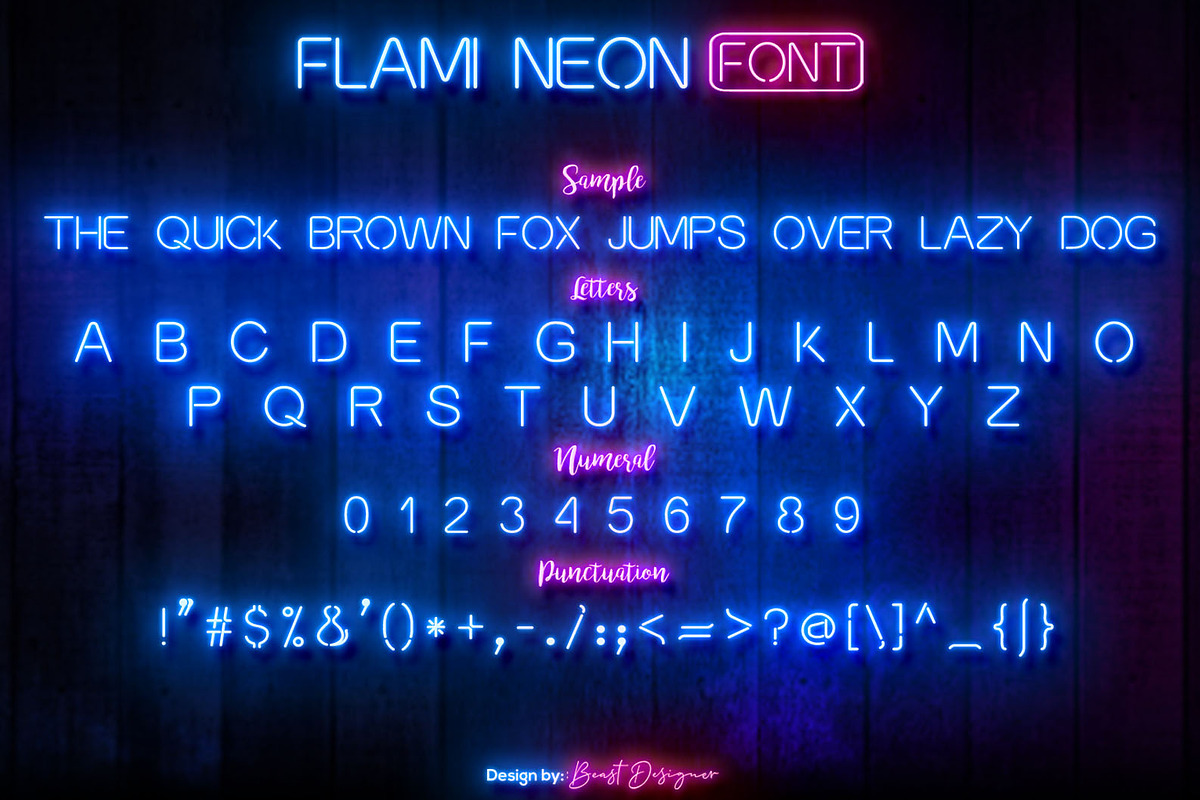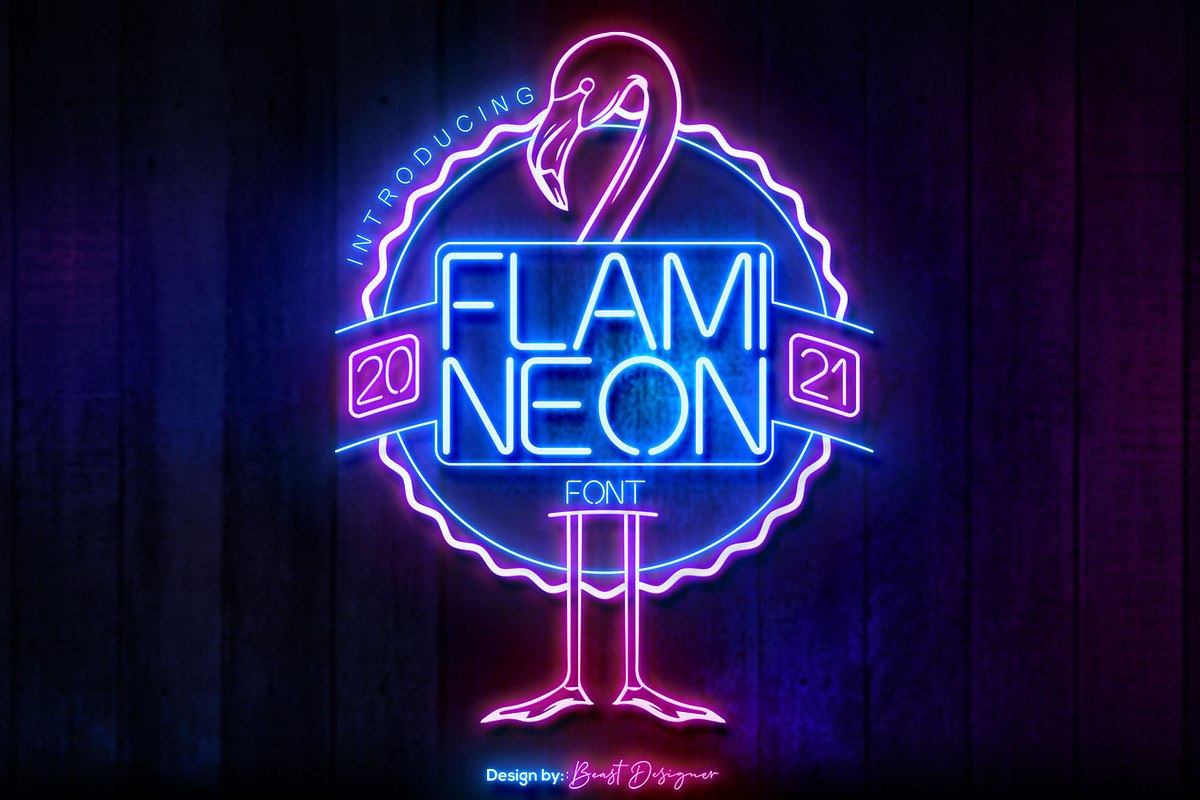
Flami Neon
Flami Neon is a bold and eye-catching geometric display font with a retrofuturistic vibe. Its simplicity and clean lines make it versatile for a variety of design projects, from signage and branding to posters and digital artwork. The lettered style adds a touch of personality and character, making it ideal for projects that need to stand out.